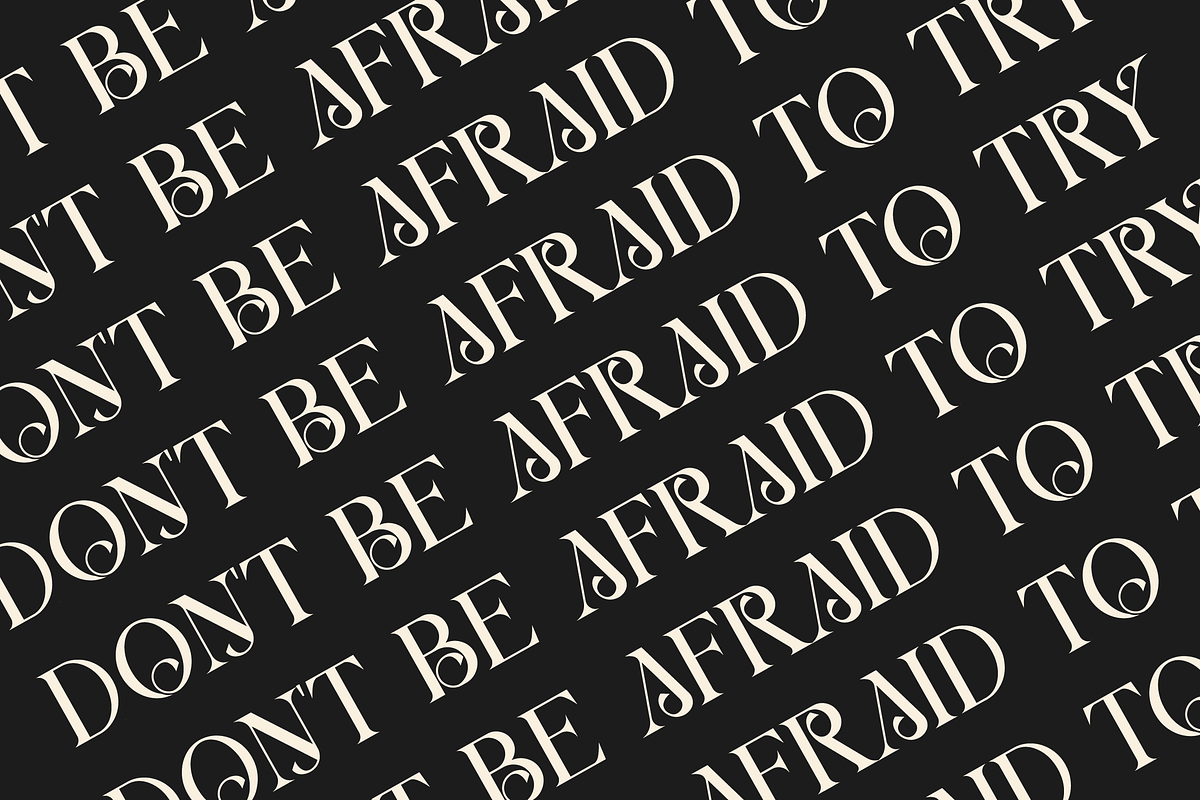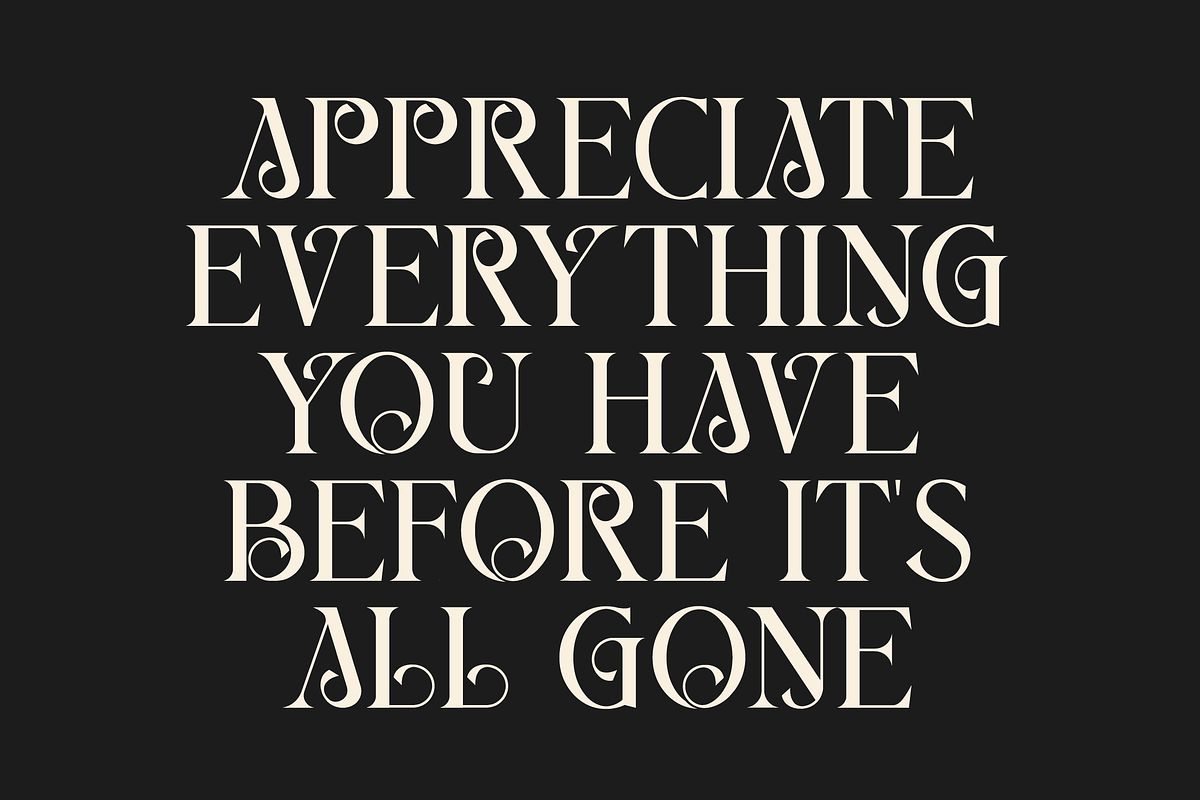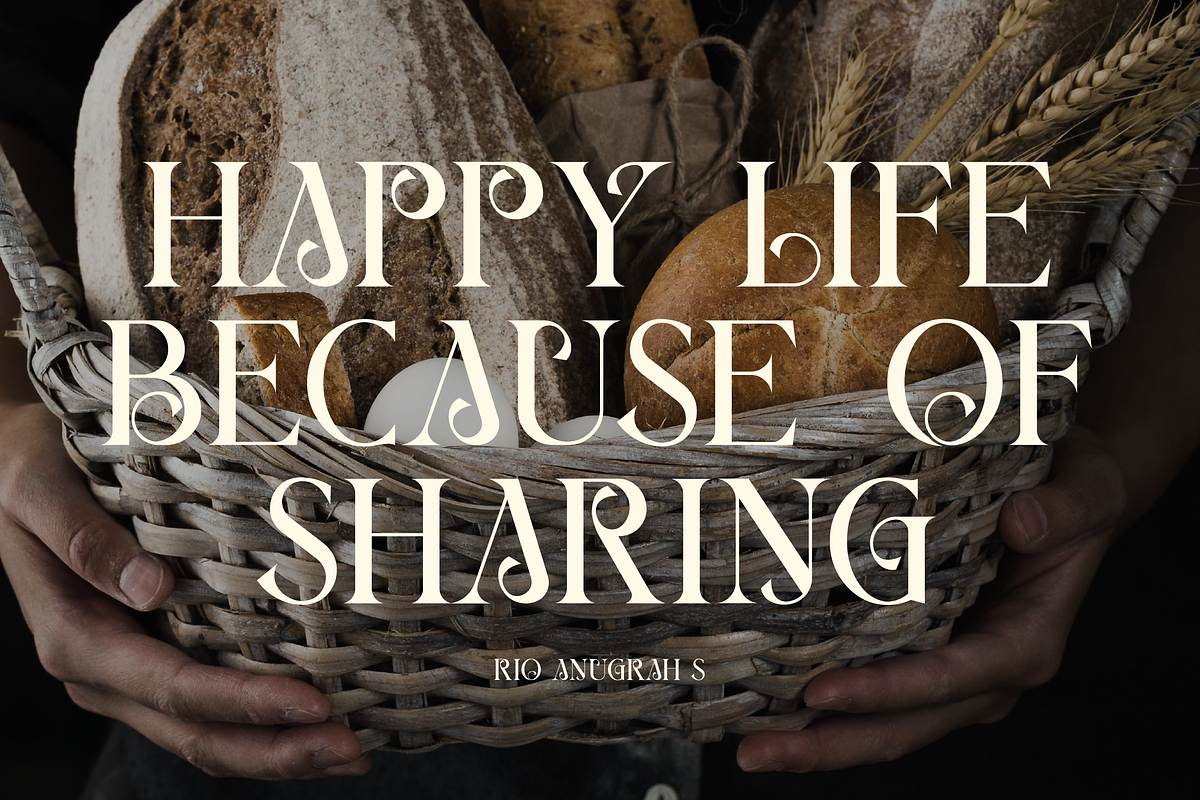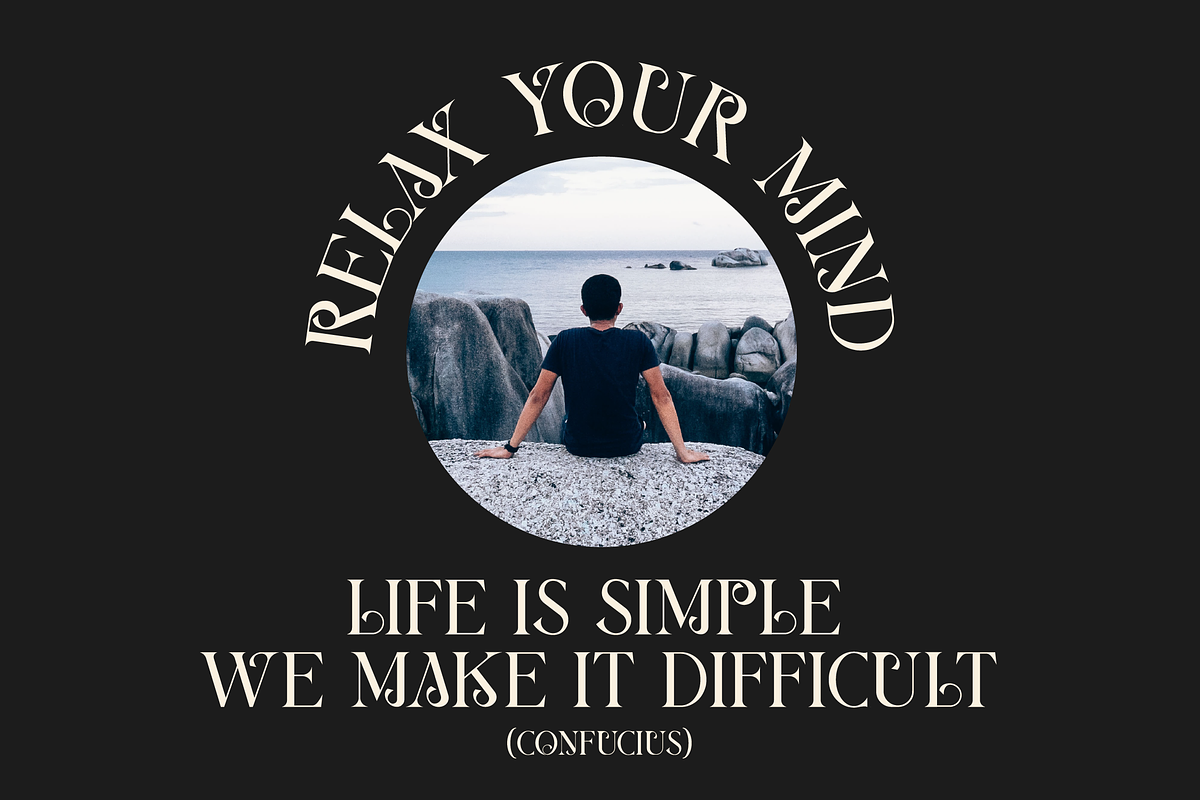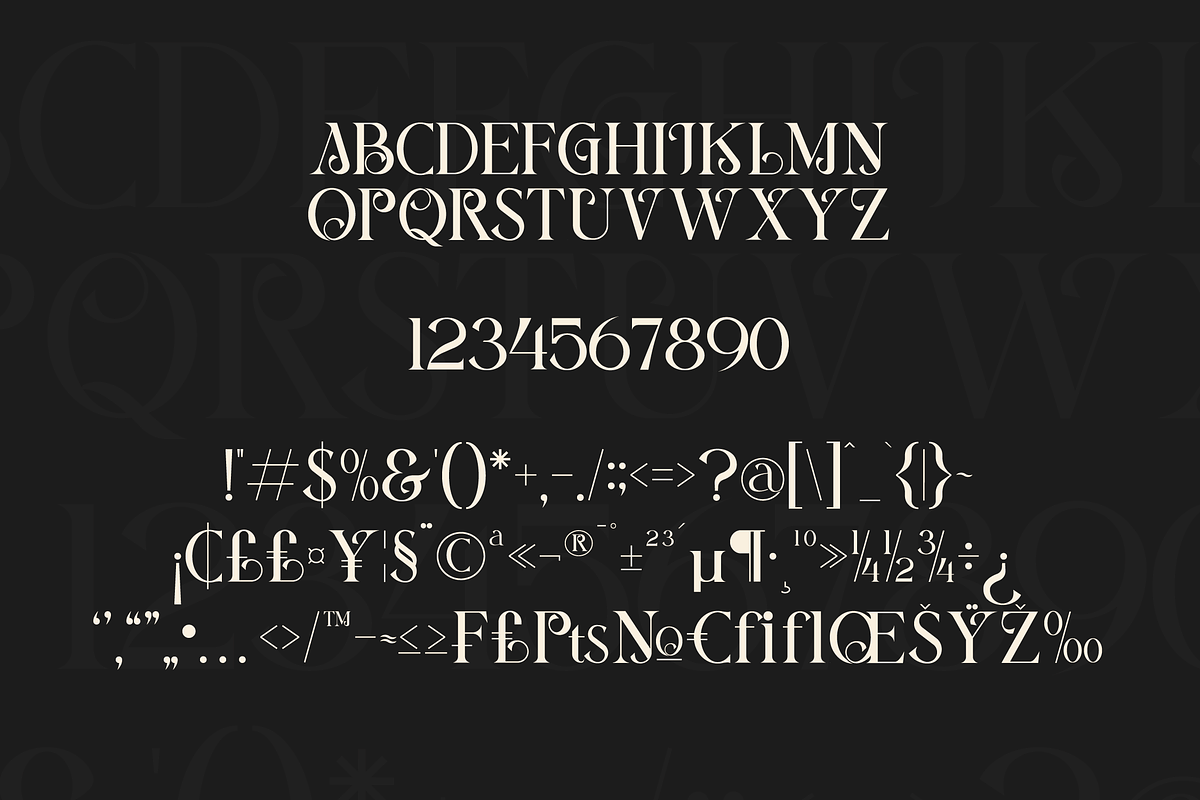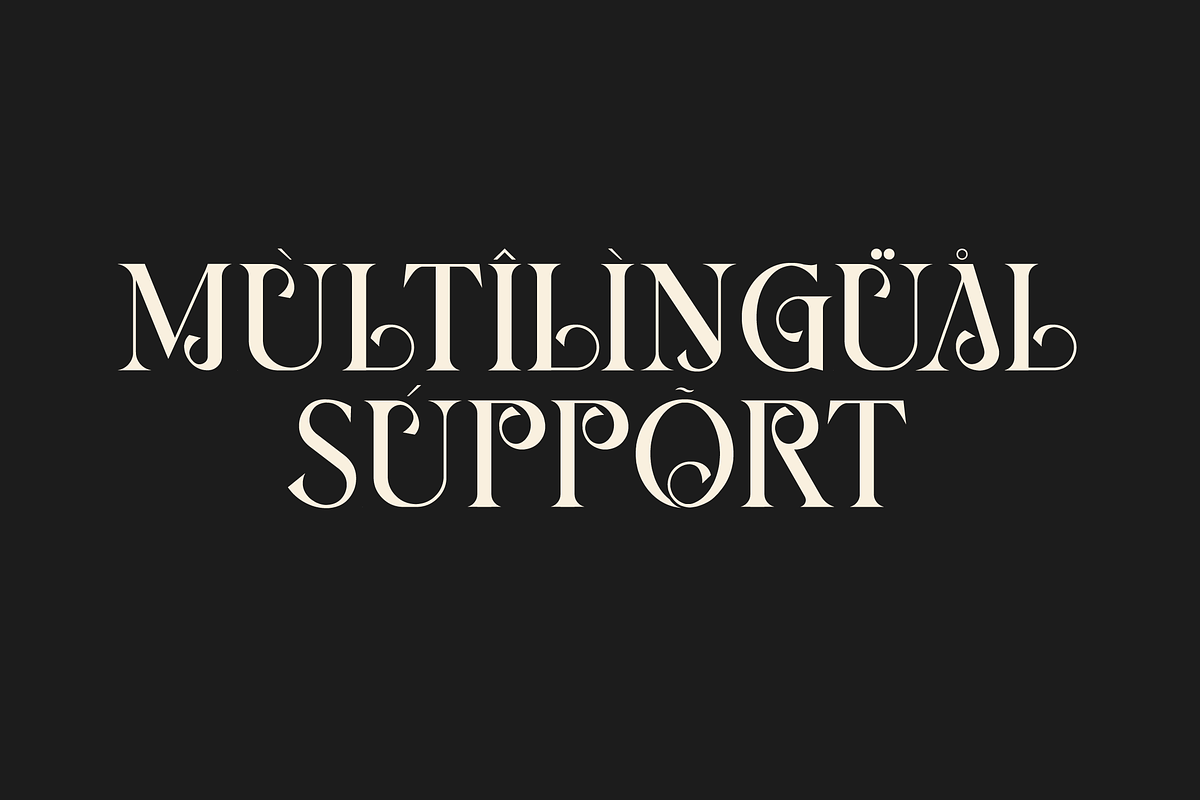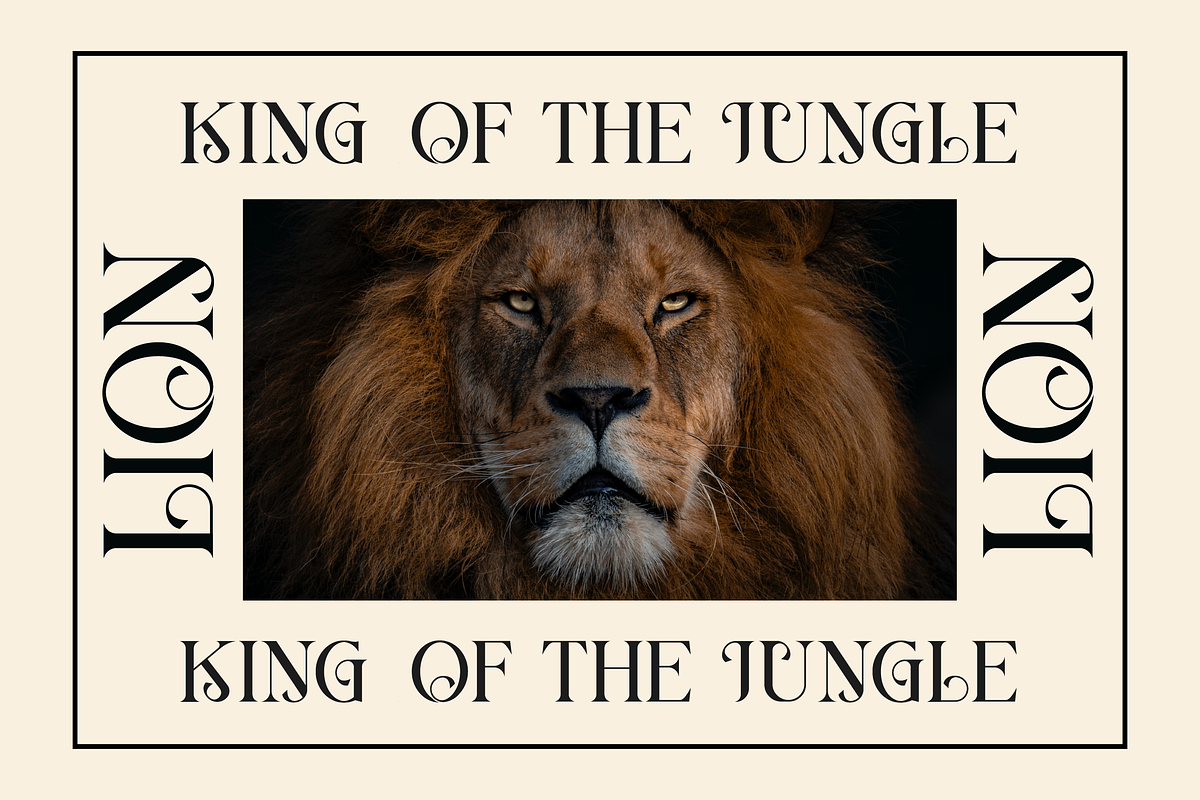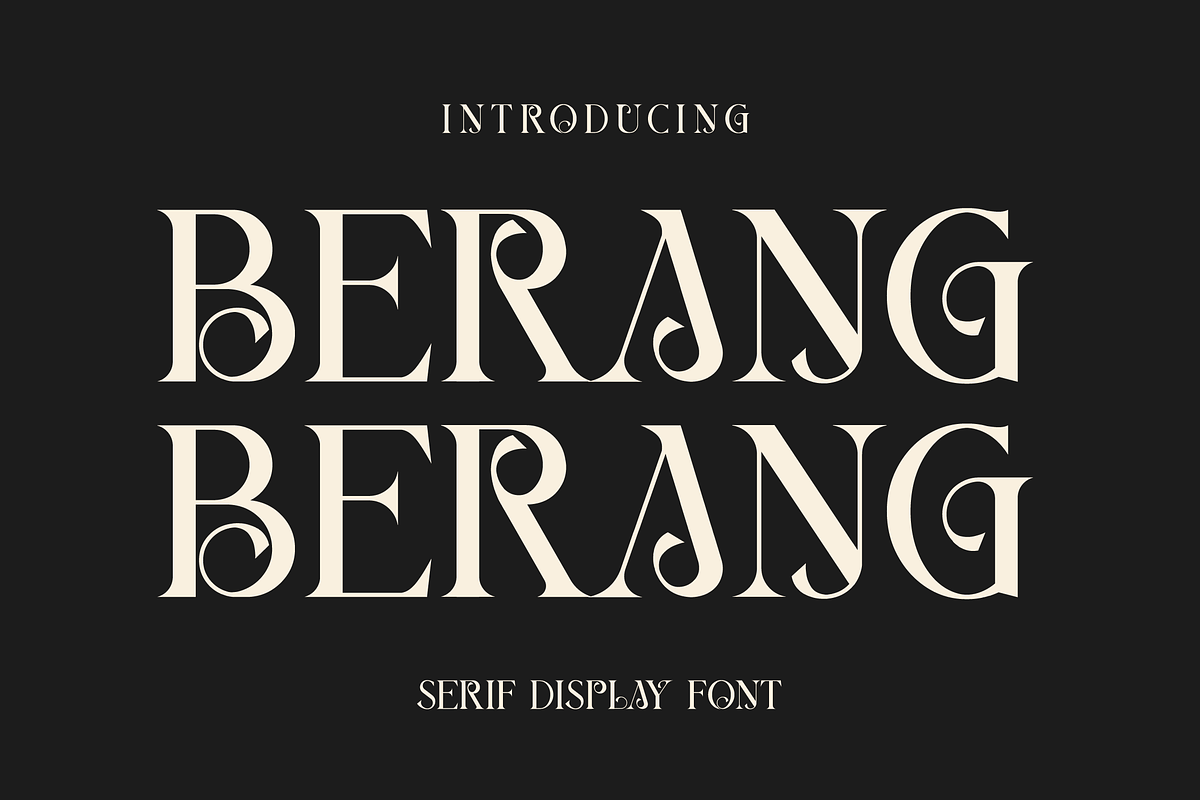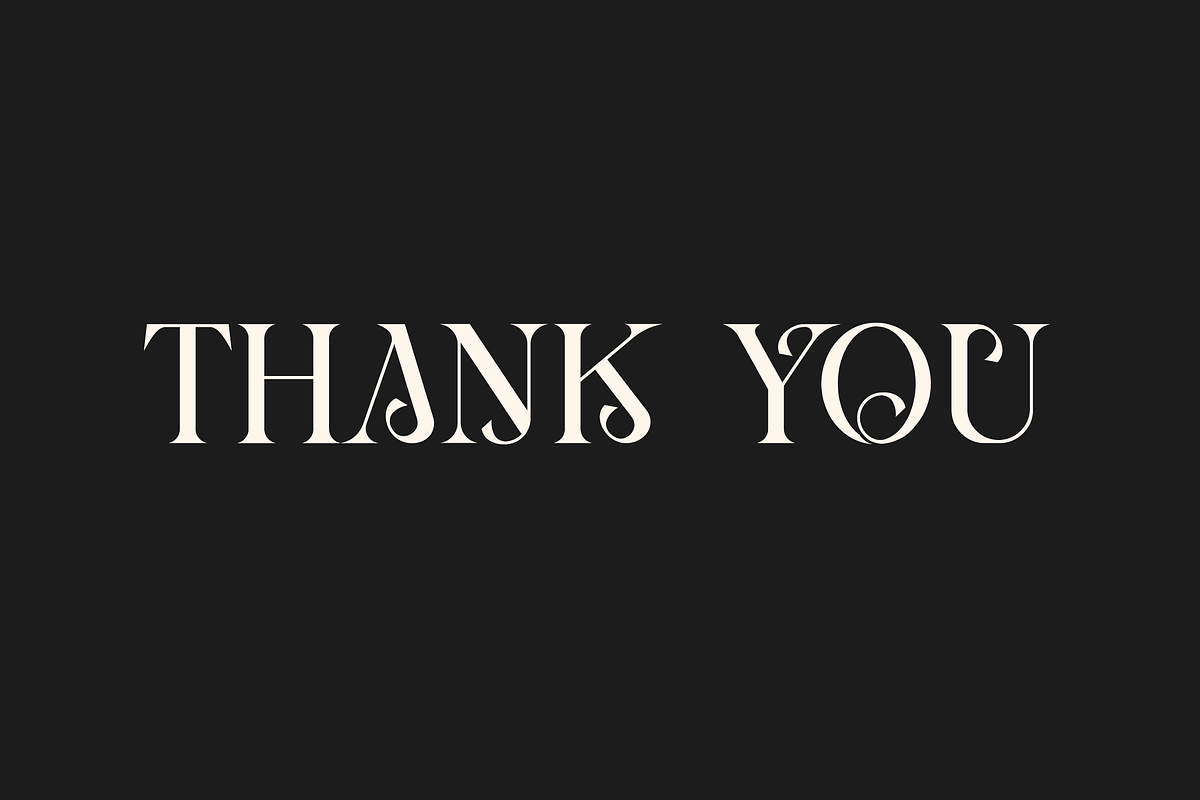
Berang Berang Serif Display Font
We are proud to present BerangBerang Display Font, created by Maryamtype Studio, a Display serif typeface that has a unique modern style & look. This typeface is perfect for elegant & luxurious logos, book or movie title designs, fashion brands, magazines, clothing, fonts, quotes and more.
- Alternative Style Ligatures and Style Sets